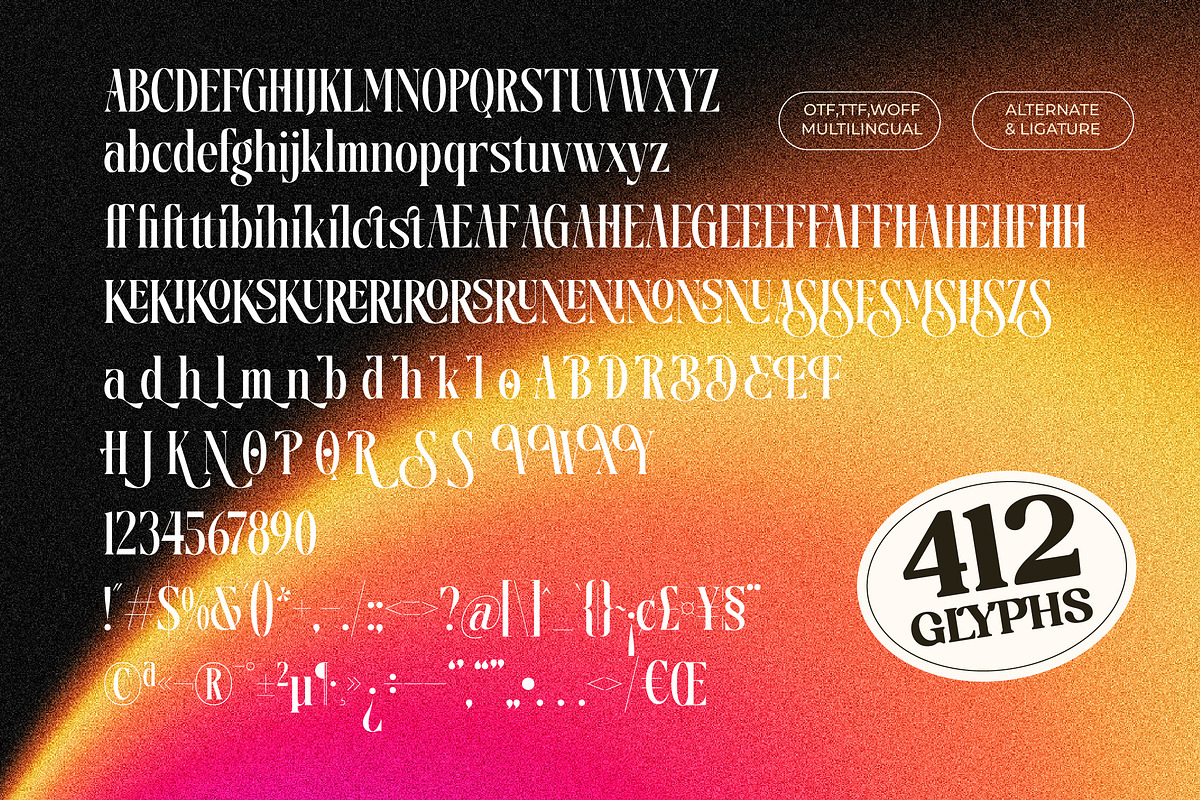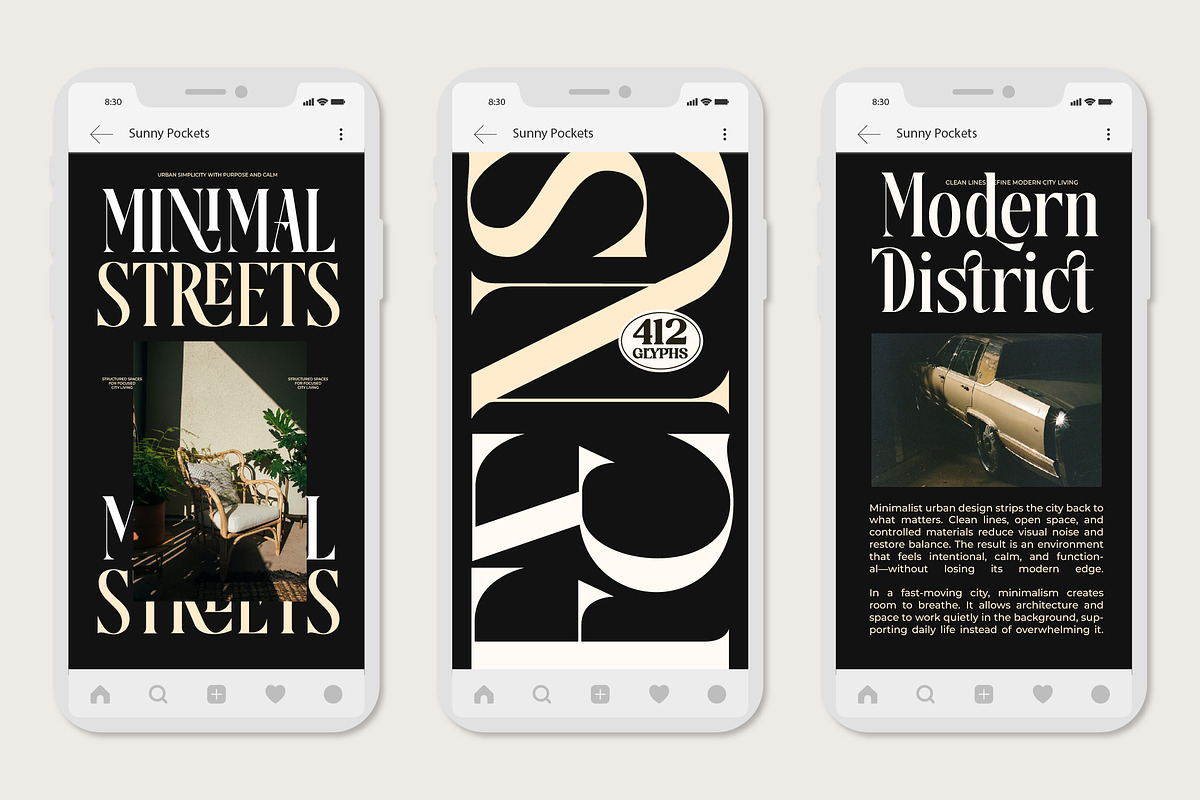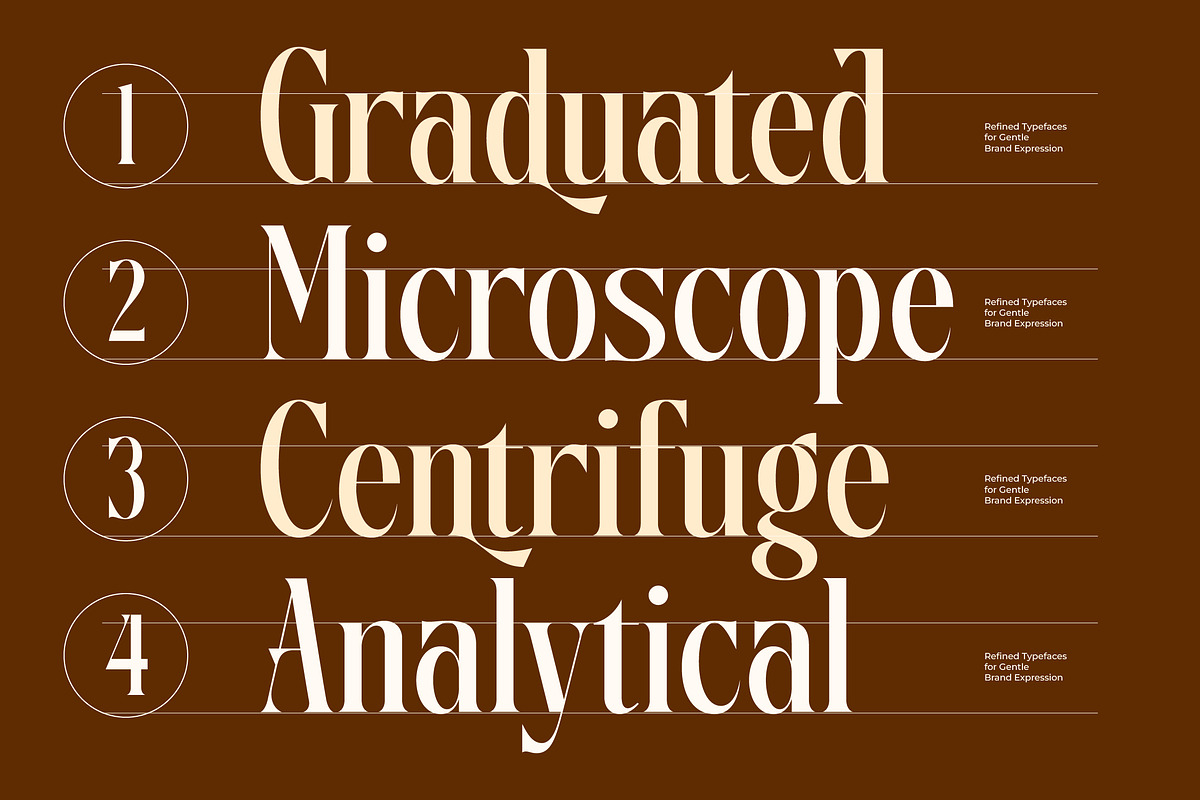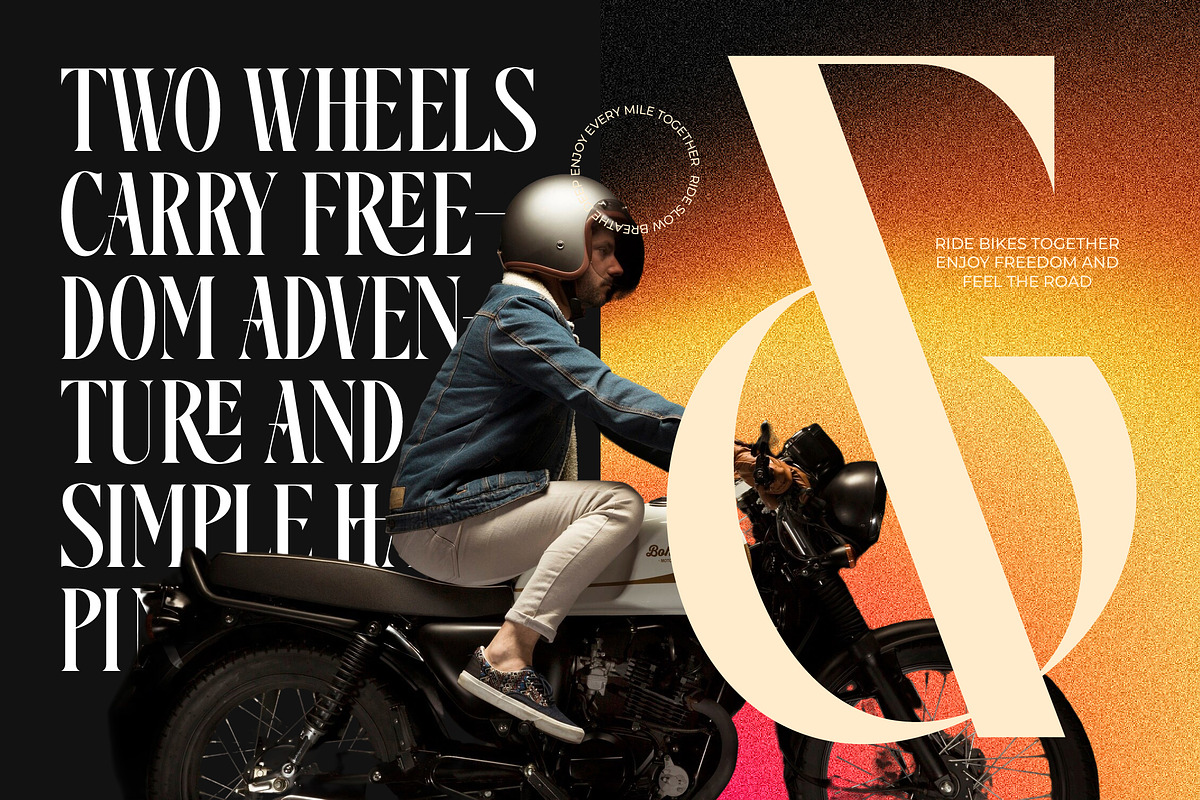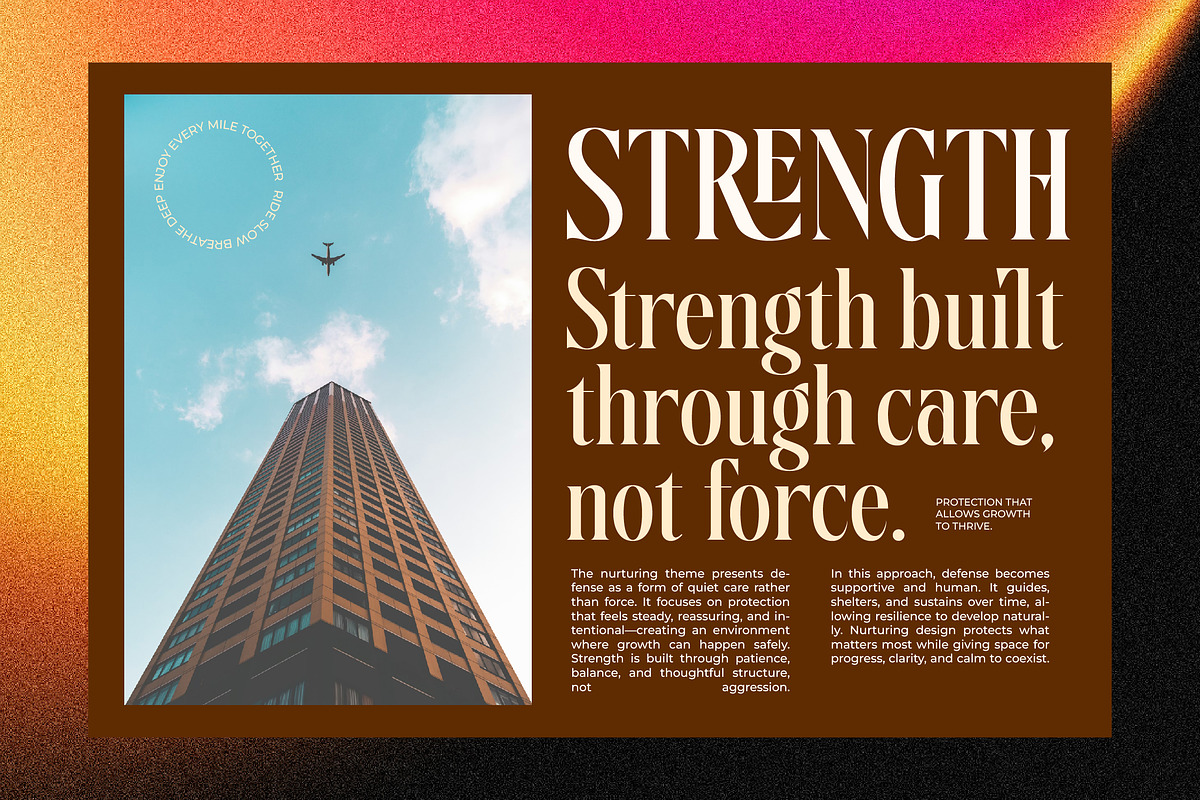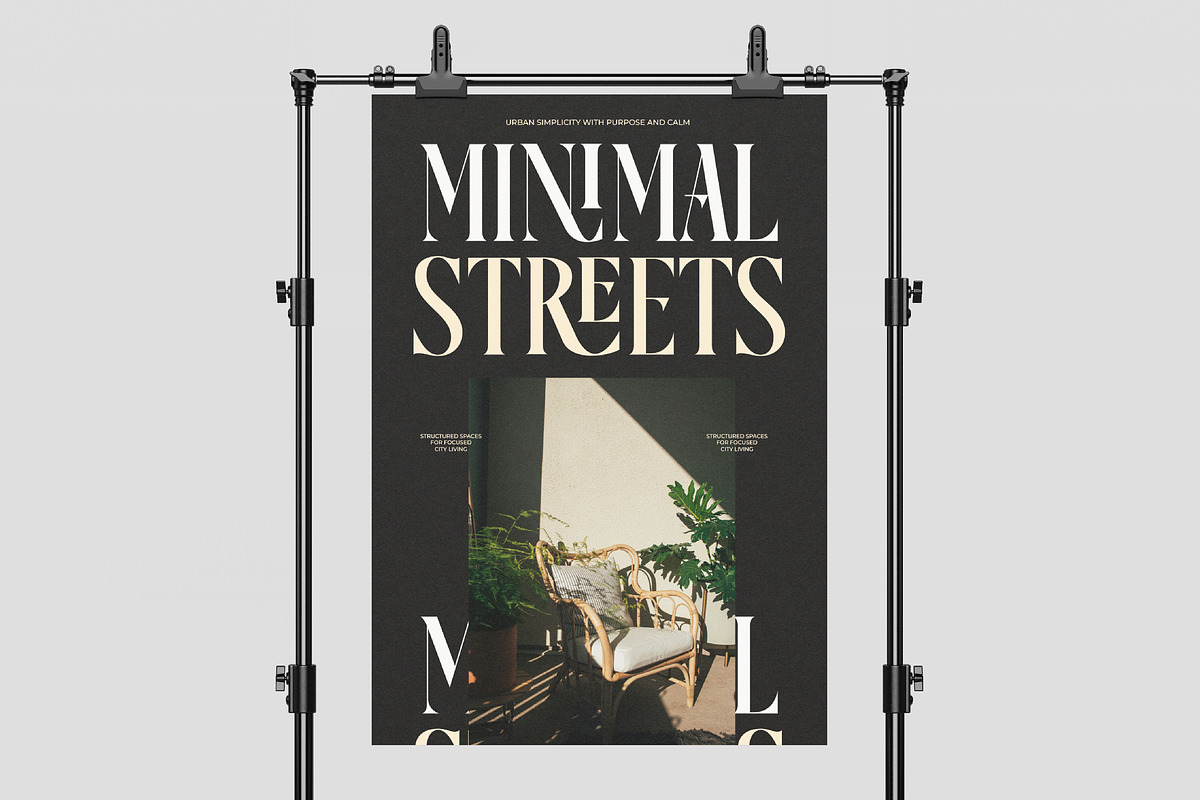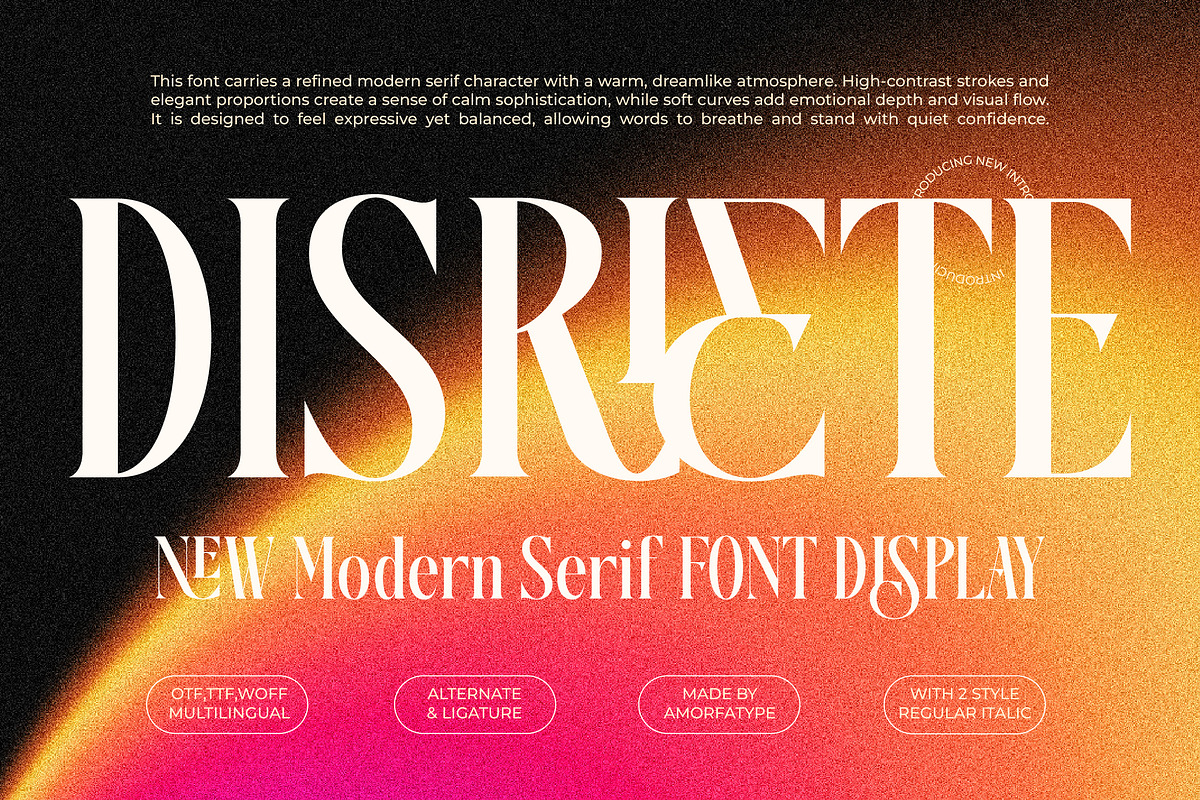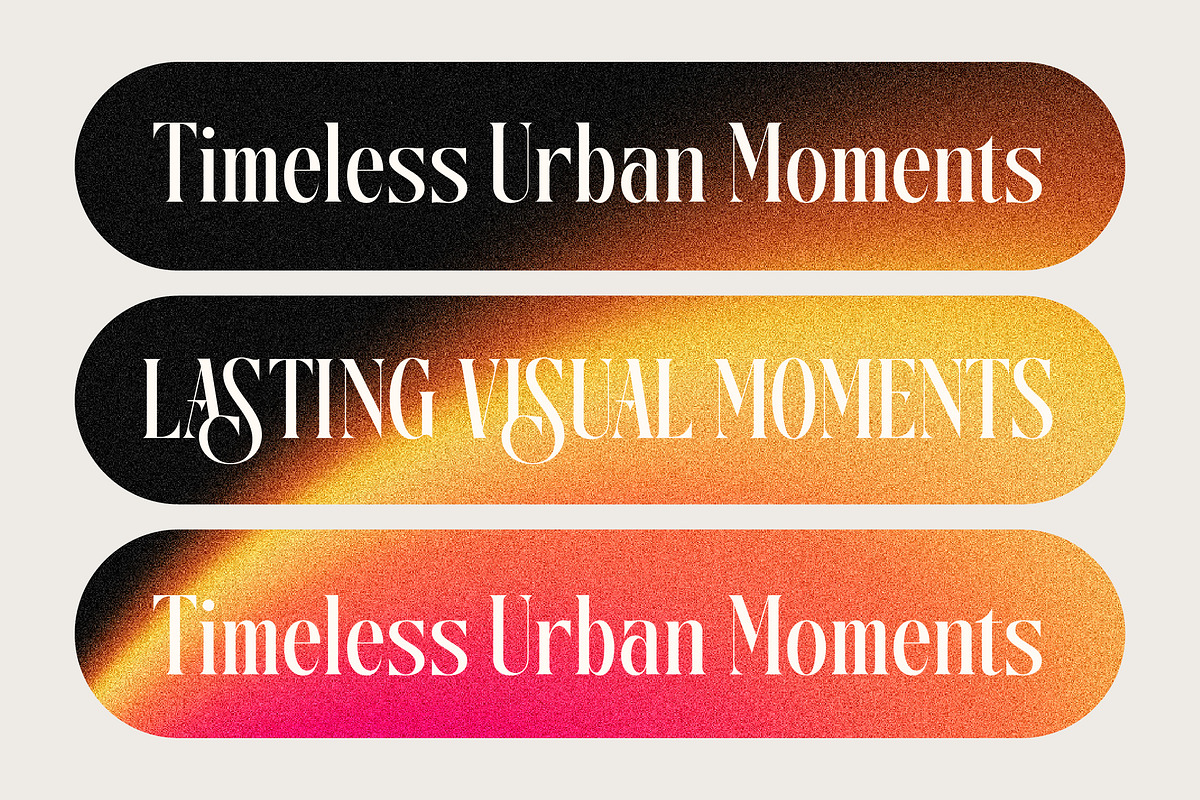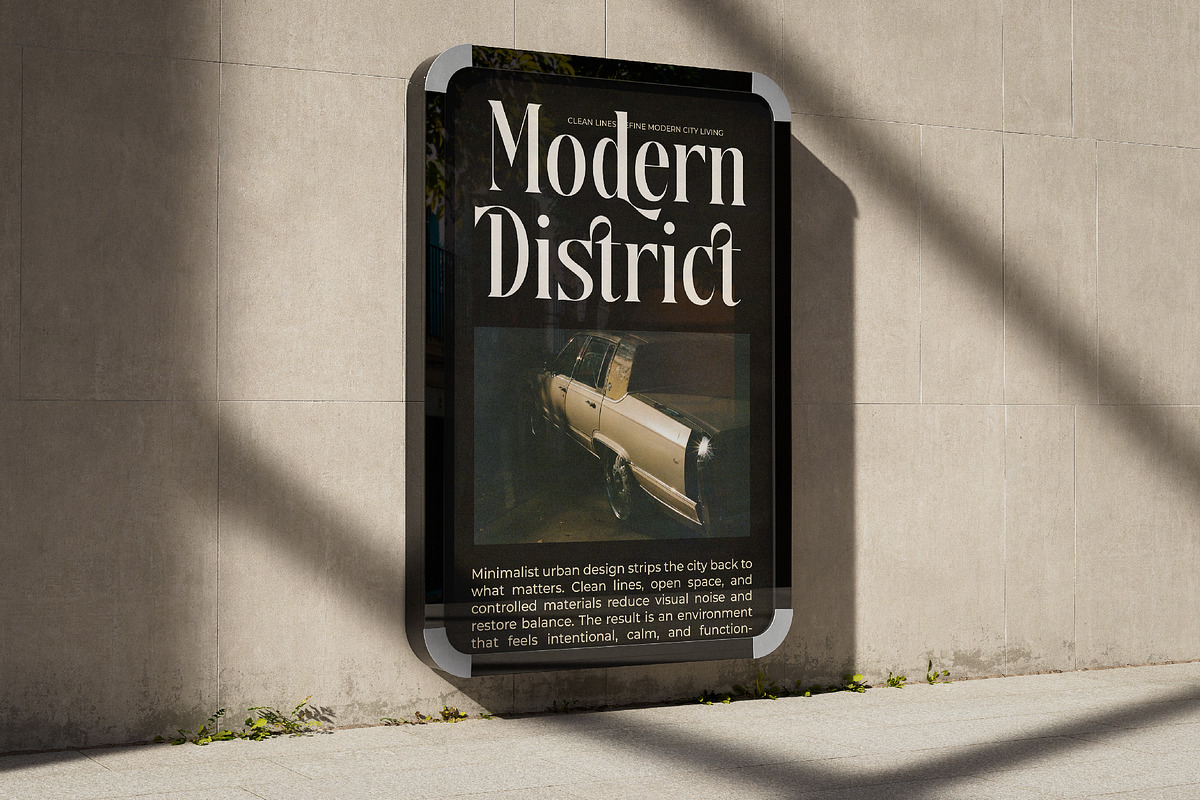
Disriete Modern Serif Display
Disriete is a modern serif display font designed to deliver strong visual presence with refined elegance. Built with clean structures, confident proportions, and contemporary serif details, Disriete balances modern clarity with expressive character. Its distinctive letterforms make it ideal for impactful typography that feels bold, stylish, and professional at the same time.
Designed for high-visibility applications, Disriete works seamlessly across branding, editorial layouts, posters, packaging, and striking headlines. The font is crafted to stand out without sacrificing readability, making it a reliable choice for both creative and commercial design projects.
Modern & Display-Focused – Created for bold headlines, branding identities, editorial titles, and visual-forward design work. Expressive Flexibility – Equipped with extensive alternates and ligatures to explore diverse typographic expressions. Multilingual Support – Includes a wide range of international characters for global use. Optimized for Print & Digital – Clean outlines ensure sharp rendering across all media.